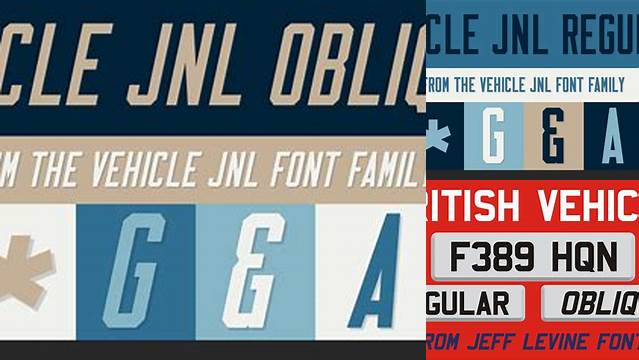
Vehicle JNL Free Font: Your Ultimate Guide
Hey guys! Are you on the hunt for a unique and eye-catching font for your next design project? Look no further! In this comprehensive guide, we're diving deep into the world of Vehicle JNL Free Font. This font, with its distinctive and bold character, is perfect for a wide range of applications, from branding and advertising to posters and digital art. We'll explore its history, characteristics, and how you can best utilize it to create stunning visuals. So, buckle up and let's get started!
What is Vehicle JNL Free Font?
Vehicle JNL Free Font is a typeface that exudes a robust and industrial feel, making it an excellent choice for projects that require a strong and assertive visual presence. Its design is inspired by the lettering found on vintage vehicles, giving it a classic yet contemporary appeal. This font stands out with its clean lines and bold strokes, ensuring legibility and impact across various media. Vehicle JNL Free Font isn't just a font; it’s a statement. Its robust nature makes it ideal for projects that need to convey strength, reliability, and a touch of vintage charm. Whether you’re designing a logo for an automotive company, creating posters for a classic car show, or developing a website with an industrial theme, this font can add a distinctive and memorable flair. The beauty of Vehicle JNL Free Font lies in its versatility. While it shines in contexts that demand a bold and masculine aesthetic, it can also be incorporated into designs that require a touch of vintage elegance. Imagine using it for the title of a book set in the early 20th century, or for the branding of a handcrafted goods store that values quality and durability. The font's clean lines and balanced letterforms ensure that it remains legible and visually appealing, even at smaller sizes, making it suitable for a wide range of applications. Moreover, Vehicle JNL Free Font is more than just visually appealing; it’s also practical. Designers appreciate its clean design because it integrates smoothly with other design elements, be it images, colors, or other fonts. This ease of integration allows for greater creative freedom, enabling designers to craft cohesive and compelling visual narratives. In the world of typography, where fonts can significantly influence the perception and emotional impact of a design, Vehicle JNL Free Font holds a special place. It’s a font that commands attention, conveys confidence, and adds a touch of timeless appeal to any project. For designers seeking a font that can balance boldness with versatility, and vintage charm with modern aesthetics, Vehicle JNL Free Font is an exceptional choice.
History and Inspiration Behind Vehicle JNL
The history of Vehicle JNL Free Font is as fascinating as the font itself. Its design is deeply rooted in the vintage aesthetics of vehicular lettering, drawing inspiration from the bold and sturdy typography seen on classic cars, trucks, and other vehicles from the early to mid-20th century. This era was characterized by a commitment to craftsmanship and durability, qualities that are reflected in the font's strong and assertive character. The inspiration behind Vehicle JNL Free Font stems from a period when vehicles were not just modes of transportation but symbols of innovation and progress. The lettering used on these vehicles often had a distinct personality, reflecting the era's emphasis on functionality and aesthetic appeal. These letterforms were designed to be easily readable and visually striking, capturing the essence of the vehicle’s brand and purpose. Vehicle JNL Free Font pays homage to this rich history by reinterpreting these classic letterforms for modern design applications. The font captures the spirit of the automotive industry's golden age, a time when cars were built with meticulous attention to detail and a focus on enduring quality. This historical context adds depth and character to the font, making it more than just a set of letters; it's a piece of design history. The designer of Vehicle JNL Free Font carefully studied various examples of vintage vehicular lettering, analyzing the nuances of each letterform to create a cohesive and versatile typeface. This meticulous approach ensures that the font maintains the authenticity of its inspiration while also meeting the demands of contemporary design. The result is a font that seamlessly blends the old with the new, making it an excellent choice for projects that seek to evoke a sense of nostalgia or celebrate the history of transportation. Moreover, the historical inspiration behind Vehicle JNL Free Font extends beyond the aesthetic realm. It also embodies the values of the era, such as reliability, strength, and durability. These qualities are subtly conveyed through the font's robust letterforms and clean lines, making it an ideal choice for brands and projects that wish to communicate these attributes. In essence, Vehicle JNL Free Font is a testament to the enduring appeal of vintage design. It’s a font that tells a story, evokes a sense of history, and adds a touch of timeless elegance to any project. For designers who appreciate the artistry of the past and seek to incorporate it into their work, Vehicle JNL Free Font offers a unique and compelling solution.
Key Characteristics of Vehicle JNL Free Font
So, what makes Vehicle JNL Free Font stand out from the crowd? Let's dive into its key characteristics:
- Bold and Sturdy Design: The font features thick strokes and strong letterforms, giving it a powerful and commanding presence. This makes it ideal for headlines, titles, and other prominent design elements.
- Clean and Legible: Despite its boldness, Vehicle JNL Free Font maintains excellent legibility, even at smaller sizes. The letters are well-defined and easy to read, ensuring that your message is conveyed clearly and effectively.
- Vintage-Inspired: As we discussed earlier, the font's design is heavily influenced by vintage vehicular lettering. This gives it a unique and nostalgic feel, perfect for projects that aim to evoke a sense of the past.
- Versatile: While it excels in vintage-themed designs, Vehicle JNL Free Font is versatile enough to be used in a variety of contexts. Its clean and modern lines allow it to blend seamlessly with different design styles and aesthetics. The versatility of Vehicle JNL Free Font is one of its most appealing attributes. Its design strikes a balance between boldness and readability, making it suitable for both print and digital applications. Whether you're designing a poster, a website, or a logo, this font can adapt to your needs and enhance the overall visual impact. For instance, in print, Vehicle JNL Free Font works exceptionally well for headlines and call-to-actions, where its strong presence can grab the reader's attention. Its clear letterforms ensure that the message remains legible, even when printed at smaller sizes. This makes it an excellent choice for brochures, flyers, and other marketing materials where readability is crucial. In the digital realm, Vehicle JNL Free Font shines in web design and user interfaces. Its bold design adds character to websites, while its legibility ensures that users can easily read text on screens of various sizes. This is particularly important in today's mobile-first world, where designs must be responsive and readable across a wide range of devices. Furthermore, the vintage-inspired aesthetic of Vehicle JNL Free Font makes it a perfect fit for projects that aim to evoke a sense of nostalgia or celebrate a specific era. Whether you're designing a poster for a classic car show, creating a logo for a vintage-inspired brand, or developing a website with a retro theme, this font can help you achieve the desired look and feel. However, the versatility of Vehicle JNL Free Font extends beyond its vintage appeal. Its clean lines and modern design also make it suitable for contemporary projects that require a touch of boldness and personality. It can be used effectively in branding, advertising, and editorial design, where its unique character can help a design stand out from the competition. In summary, Vehicle JNL Free Font is a font that offers the best of both worlds: a bold and eye-catching design with excellent legibility and versatility. Its vintage-inspired aesthetic adds character to projects, while its clean lines ensure that it remains relevant in modern design contexts. For designers seeking a font that can make a statement while maintaining readability and adaptability, Vehicle JNL Free Font is an excellent choice.
How to Use Vehicle JNL Free Font in Your Designs
Now that you know what makes Vehicle JNL Free Font so special, let's talk about how you can use it effectively in your designs. Here are a few tips to get you started:
- Headlines and Titles: Its boldness makes it a natural fit for headlines and titles, where it can command attention and set the tone for your design.
- Logos and Branding: If you're looking for a font that conveys strength, reliability, and a touch of vintage charm, Vehicle JNL Free Font is an excellent choice for logos and branding materials.
- Posters and Flyers: Its eye-catching design makes it perfect for posters and flyers, helping your message stand out from the crowd.
- Digital Art: If you're creating digital art with a vintage or industrial theme, Vehicle JNL Free Font can add a unique and authentic touch.
Let's delve deeper into these applications and explore how Vehicle JNL Free Font can be used to its full potential. When it comes to headlines and titles, the commanding presence of Vehicle JNL Free Font ensures that your message is immediately noticed. Its bold letterforms and clean lines create a sense of authority and clarity, making it an ideal choice for grabbing the reader's attention. Whether you're designing a magazine cover, a website header, or a promotional banner, using this font for your headlines can significantly enhance the visual impact of your design. The font's strong character helps to convey the importance of the message, while its legibility ensures that it remains easy to read, even at larger sizes. In the realm of logos and branding, Vehicle JNL Free Font can be a powerful asset for businesses seeking to project an image of strength, reliability, and vintage charm. Its unique aesthetic, inspired by the lettering on vintage vehicles, adds a distinctive touch to brand identities. This makes it particularly well-suited for companies in industries such as automotive, manufacturing, or handcrafted goods, where these qualities are highly valued. A logo designed with Vehicle JNL Free Font can evoke a sense of heritage and craftsmanship, while also conveying a modern and confident image. For posters and flyers, the eye-catching design of Vehicle JNL Free Font makes it an excellent choice for promotional materials. Its bold letterforms and clean lines help your message stand out in a crowded environment, ensuring that it captures the attention of your target audience. Whether you're promoting an event, advertising a product, or raising awareness for a cause, using this font can help you create a visually compelling design that resonates with your audience. The font's versatility allows it to be used in a variety of styles, from vintage-inspired designs to modern and minimalist layouts. In the world of digital art, Vehicle JNL Free Font can add a unique and authentic touch to your creations, particularly if you're working with a vintage or industrial theme. Its bold character and historical inspiration make it a perfect fit for projects that aim to evoke a sense of the past or celebrate the aesthetics of industrial design. Whether you're creating digital illustrations, typography-based artwork, or social media graphics, this font can help you achieve a distinctive and visually appealing look. In addition to these specific applications, it's important to consider the overall context of your design when using Vehicle JNL Free Font. Think about the color palette, imagery, and other design elements that you're using, and how they interact with the font. Experiment with different sizes, weights, and spacing to find the best way to use it in your project. By carefully considering these factors, you can ensure that Vehicle JNL Free Font enhances your design and helps you achieve your creative goals.
So there you have it! Vehicle JNL Free Font is a fantastic typeface with a unique blend of vintage charm and modern versatility. Whether you're designing a logo, creating a poster, or working on a digital art project, this font is sure to make a statement. Its bold and sturdy design, combined with its excellent legibility, makes it a valuable addition to any designer's toolkit. So, go ahead and give Vehicle JNL Free Font a try – you won't be disappointed! Remember to always check the licensing terms before using any font, and most importantly, have fun creating amazing designs! We hope this guide has been helpful and has inspired you to explore the possibilities of this fantastic font. Happy designing, everyone!